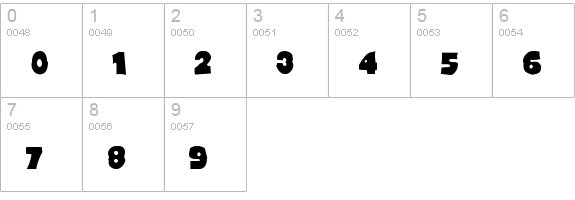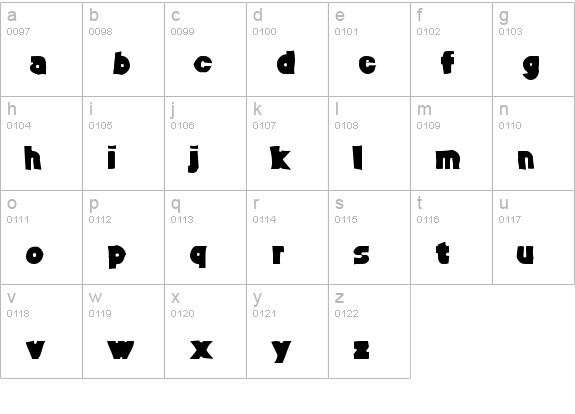
Baltar Gaunt Font Details
Baltar Gaunt font is a stunning display typeface that exudes elegance and sophistication. With its unique blend of sharp edges and smooth curves, this font is perfect for creating eye-catching headlines, logos, and branding materials. The Baltar Gaunt font is versatile and can be used for a wide range of design projects, from business cards to posters. What sets Baltar Gaunt font apart is its striking design that commands attention and makes a bold statement. The font is available in multiple weights and styles, giving you the flexibility to experiment and create striking typography compositions. The best part? Baltar Gaunt font is completely free to download at FontsMarket.com. Whether you're a professional designer or a hobbyist looking to add a touch of sophistication to your projects, Baltar Gaunt font is a fantastic choice that won't cost you a penny. Download Baltar Gaunt font today and elevate your designs with this exquisite typeface.